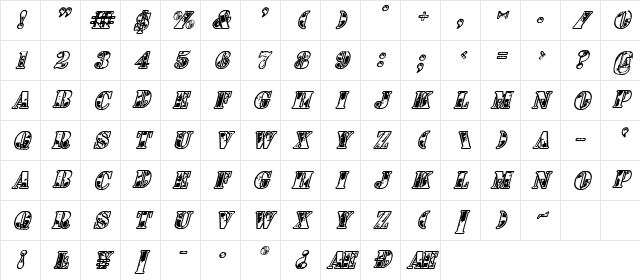
1st Cav Italic Italic Free Font
1st Cav Italic Italic
Design Context for 1st Cav Italic
1st Cav Italic is a composed and adaptable typeface that performs quietly and consistently across a wide range of design contexts. The slanted form adds forward momentum and visual energy.
Pro Tip: Use 1st Cav Italic for emphasis, pull quotes, and subheadings where its slanted energy can add rhythm to the layout.